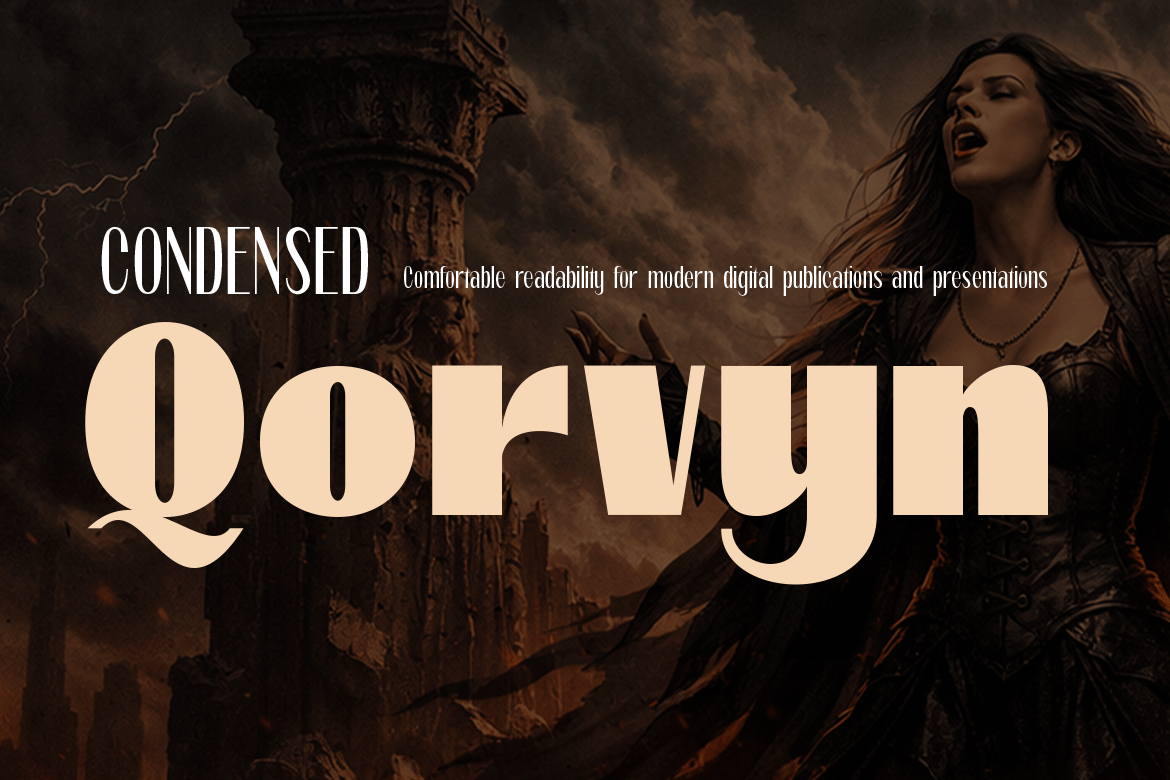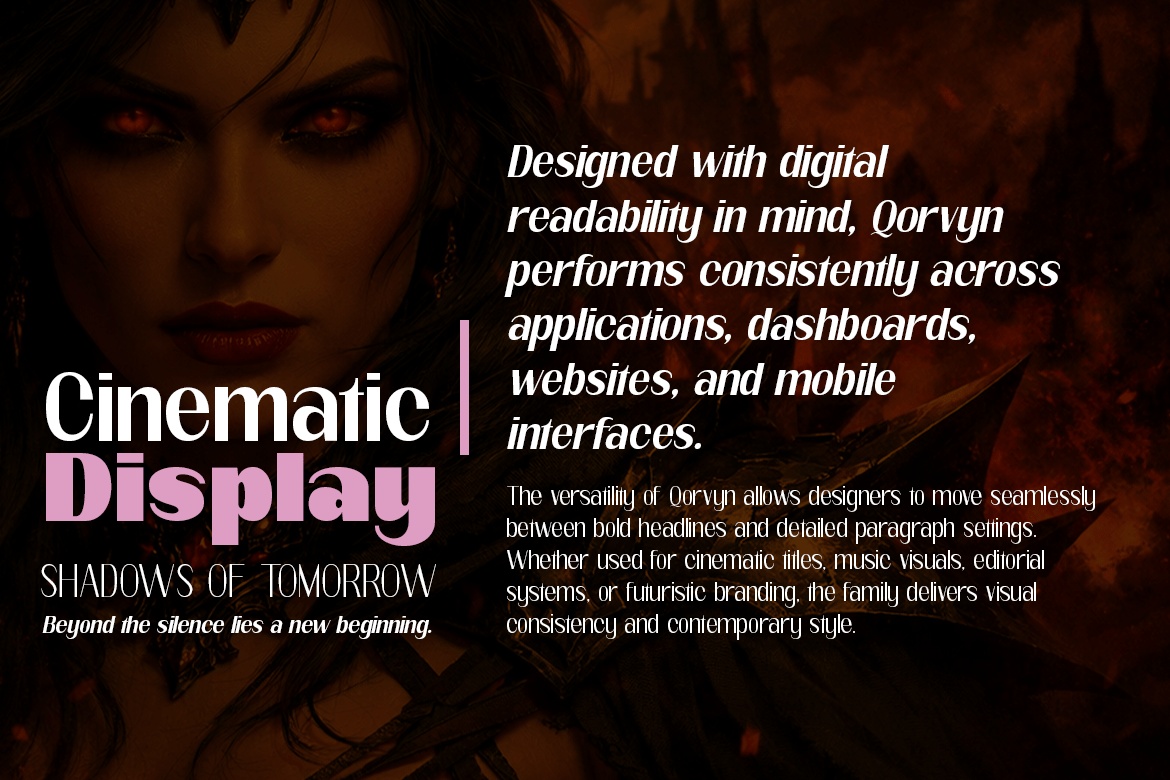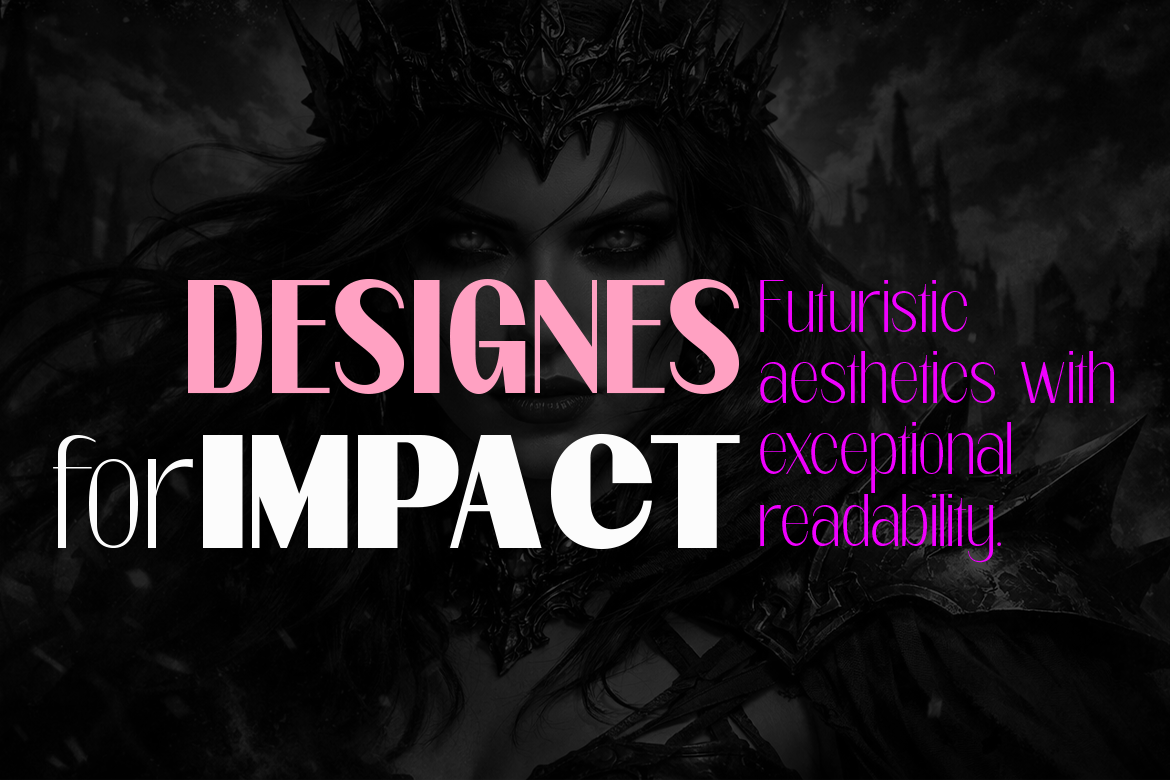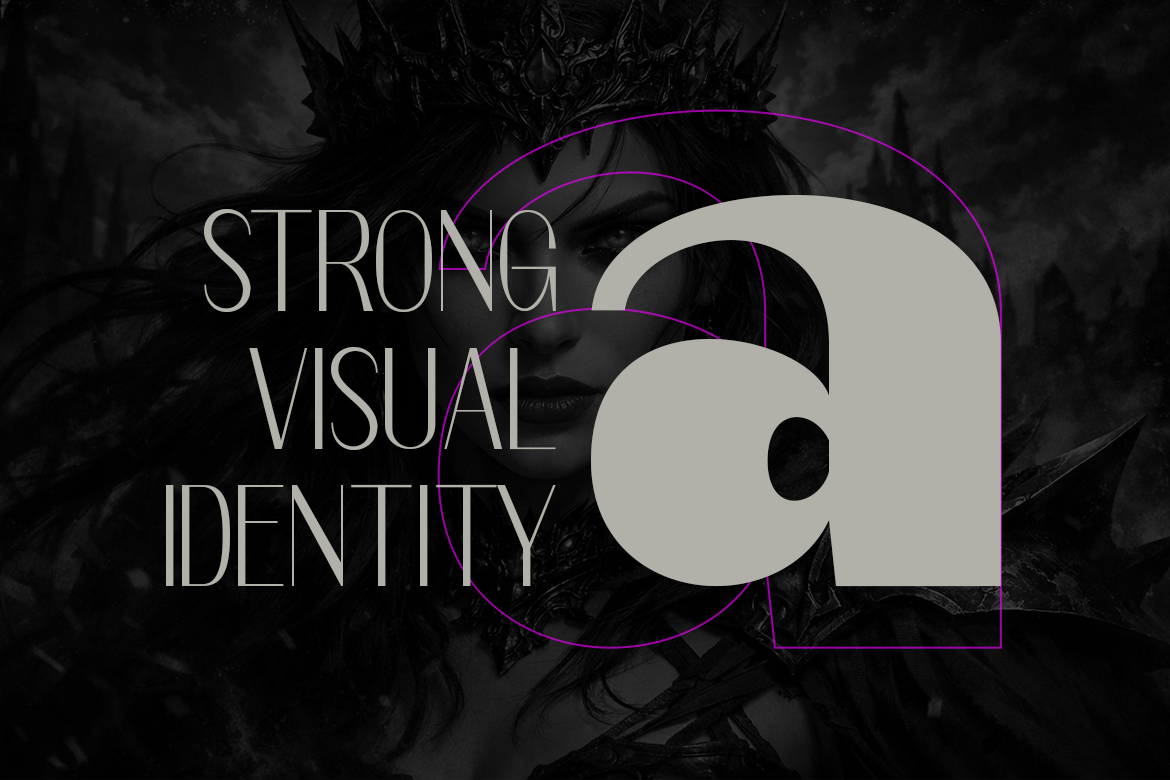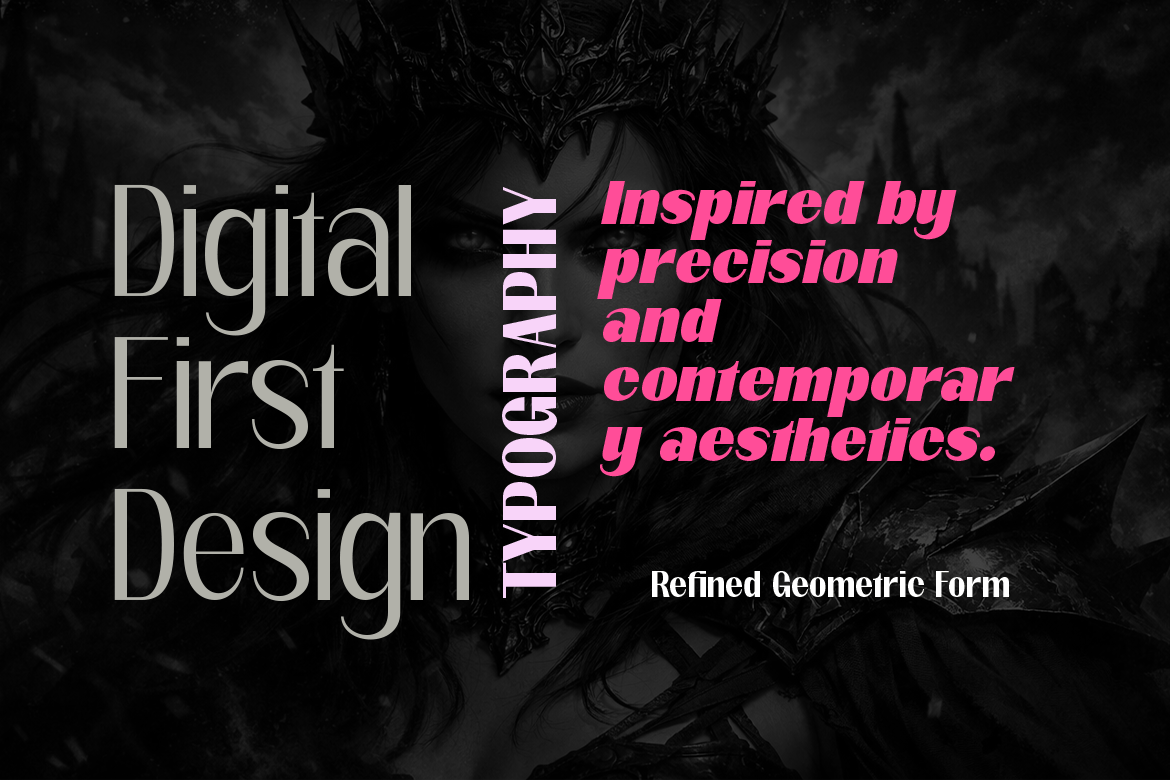
Qorvyn Normal
Qorvyn Normal is a contemporary sans-serif typeface family designed for maximum versatility, clarity, and modern visual appeal. Built with balanced proportions and clean geometric construction, it provides excellent readability across both display and text applications. The family consists of 18 styles — 9 upright and 9 italic — spanning from refined thin weights to strong black styles, making it suitable for branding, editorial design, corporate identity, web interfaces, advertising, packaging, and creative visual systems.
The upright styles deliver a clean, stable, and highly professional appearance with smooth rhythm and precise spacing, creating a timeless yet modern typographic voice. The italic styles add energy, movement, and expressive flexibility while maintaining visual harmony throughout the family. Qorvyn Normal is designed to adapt effortlessly across various design environments, offering a perfect balance between functionality and personality. With its modern aesthetics, polished details, and broad stylistic range, the family is ideal for designers seeking a dependable sans-serif with strong contemporary character.
The Qorvyn Normal font family includes 231 glyphs.